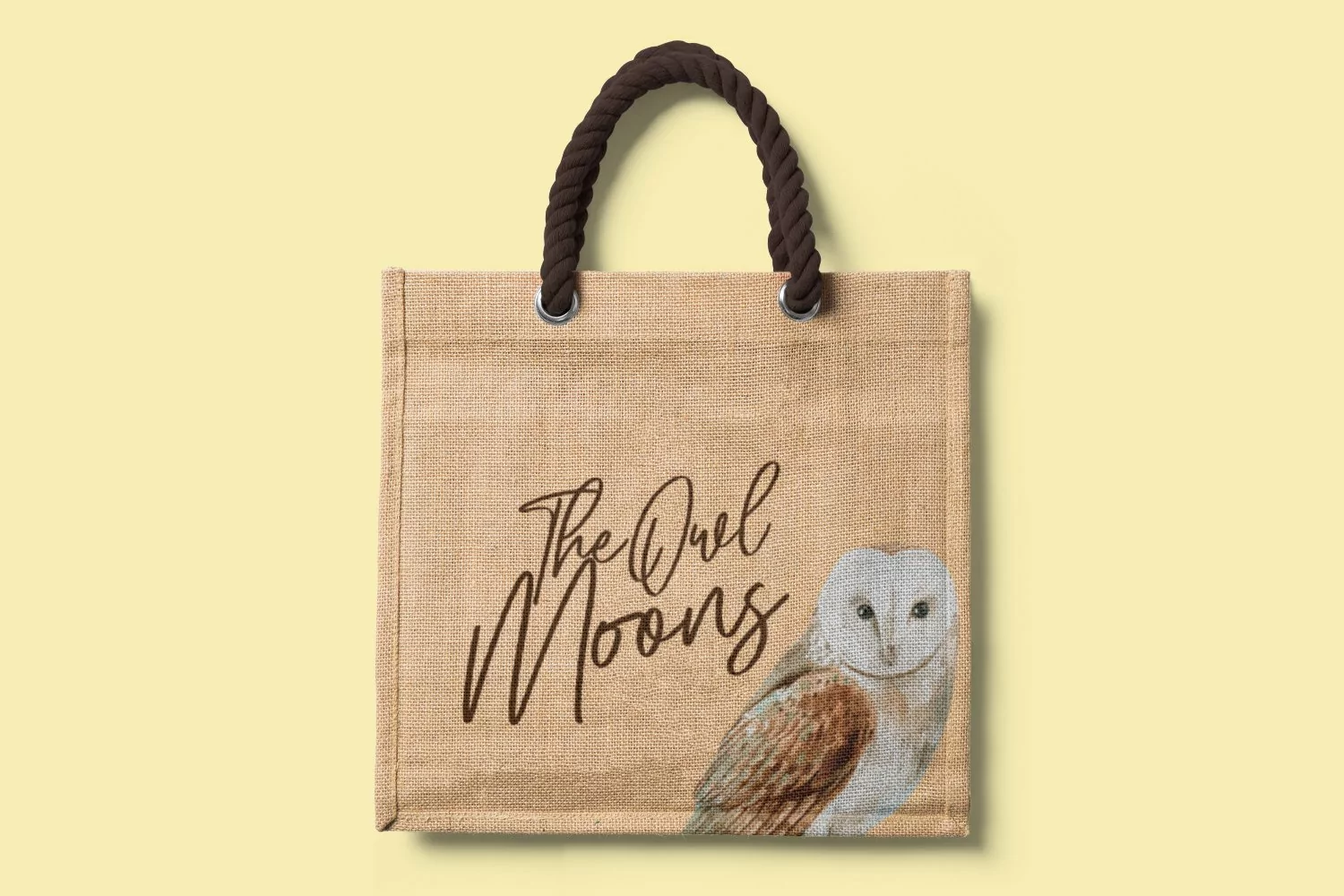
Owlmoons is casual signature font, with bold stroke, slanted and fun character. It has Opentype features ligatures of character, To give you an extra creative work. Owlmoons font support multilingual more than 100+ language. This font is good for logo design, Social media, Movie Titles, Books Titles, a short text even a long text letter and good for your secondary text font with sans or serif. Make a stunning work with Owlmoons font.
Owlmoons